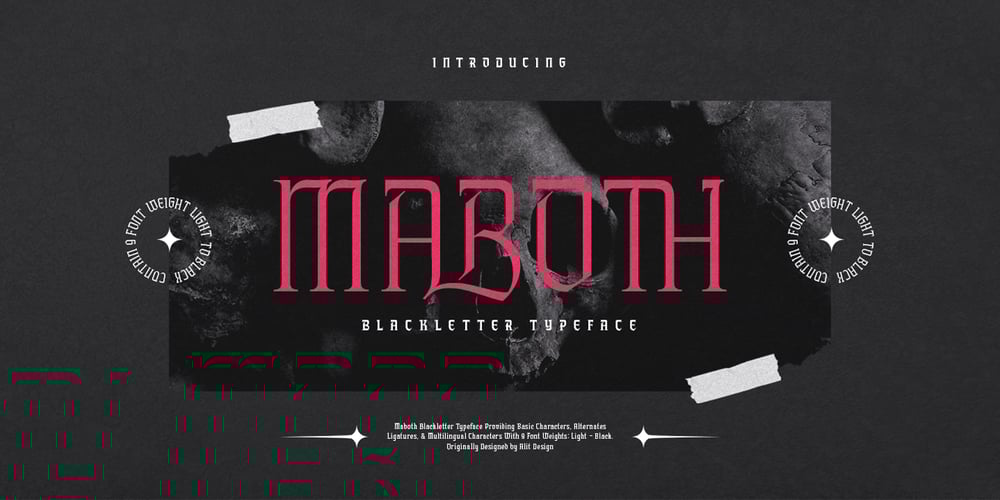
Maboth Typeface Font Family was designed by Alit Suarnegara and published by Alit Design. Maboth Typeface contains 9 styles and family package options. ✒️Maboth Typeface✒️is a font inspired by the Blackletter typeface, made with a modern impression but still looks strong and unique. Supported by alternative options such as swash, ligature and alternative characters, making The Maboth Typeface very easy to create designs with strong or dark themes. In addition, The Maboth Typeface font is also supported with multilingual characters that can be used in several international languages.The Maboth Typeface is very suitable for use in making music album cover designs, tattoo logos, wishkey labels, packaging pomades and so on which are made with dark and strong concepts.